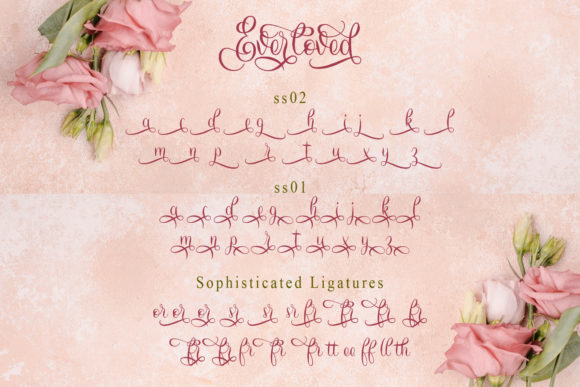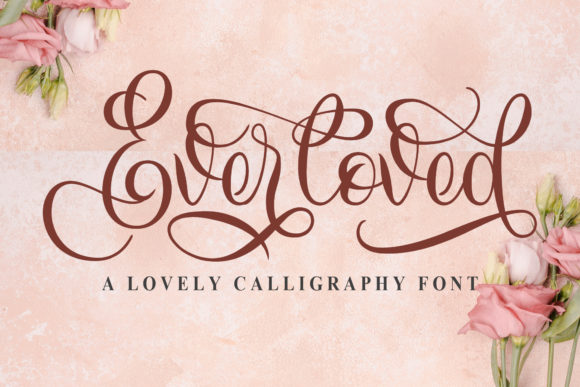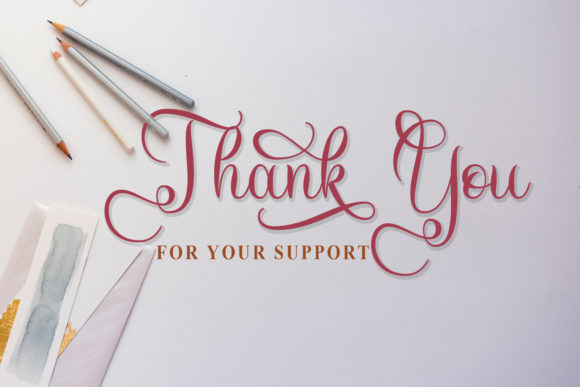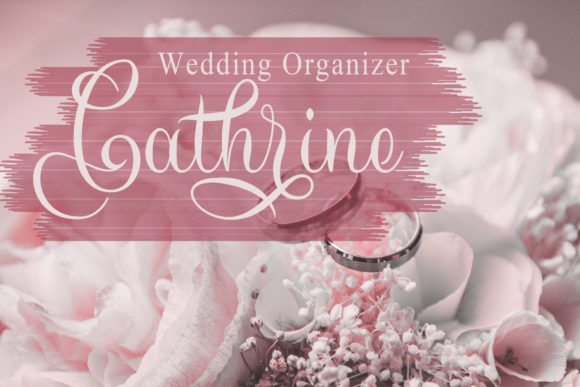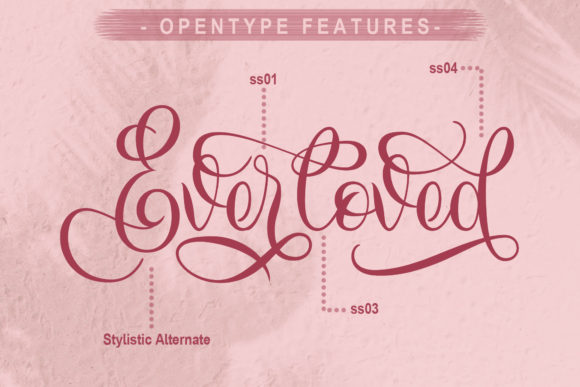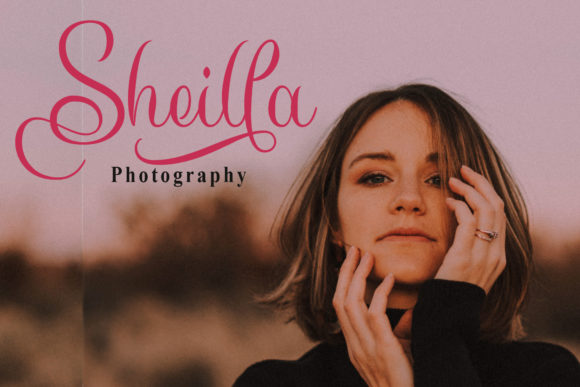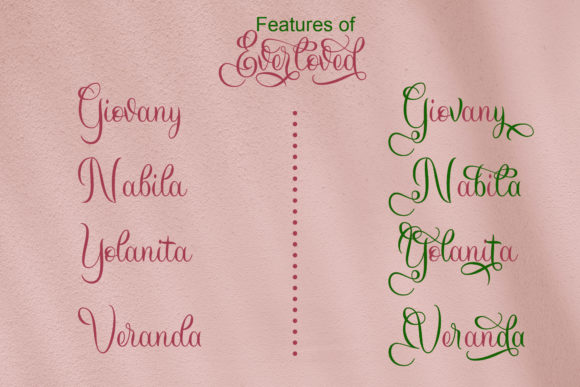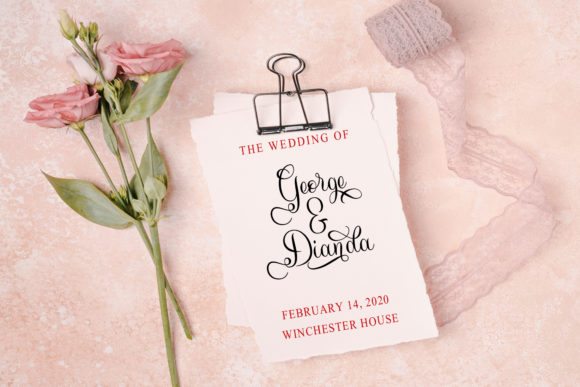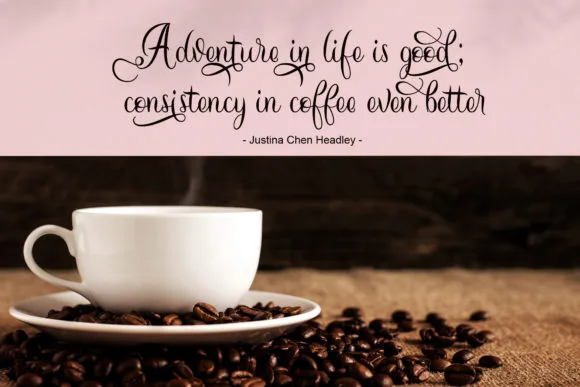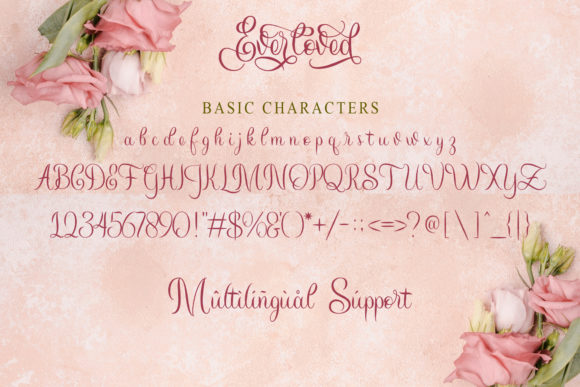
Everloved Font
About Everloved Font
Everloved feels incredibly cute. This modern homage to classic calligraphy will take any design project to the next level!